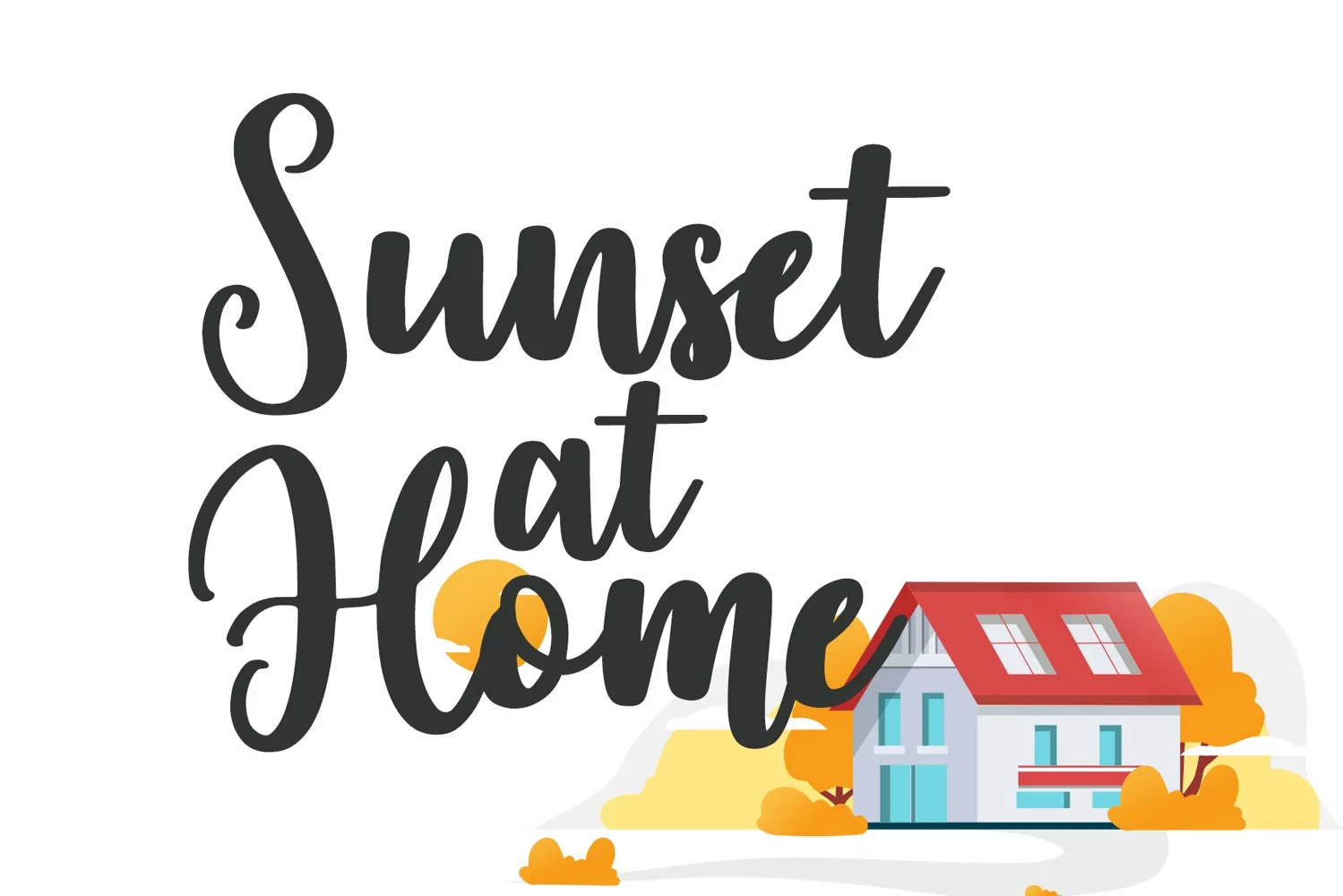
Family Home is a dainty, genuine and cursive handwritten font. This gentle font will look gorgeous on a variety of design ideas.
It will add a joyful and romantic touch to each of your projectsThis font is PUA encoded which means you can access all of the glyphs!
This font is suitable for Wedding invitation, Love themed design, mugs, christmas cards, poster design etc,
Multilingual Support
Ligature Character